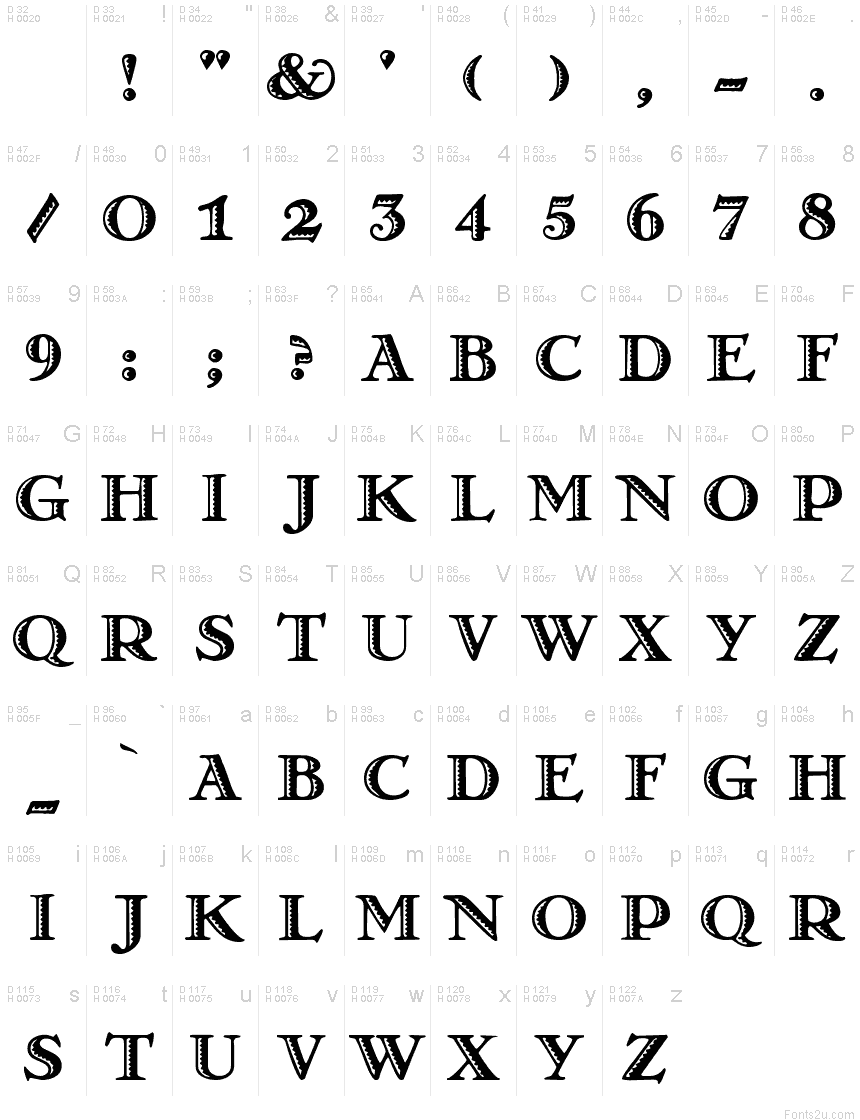
Matador font by Dixie's Delights is a free display font with a decorative, cut-paper edge and sharp wedge cuts running through the letterforms. The capitals feel sturdy and old-style, with wide serifs, pointed joins, and a rhythmic notch pattern that gives the set a carved, poster-like character.
Matador is a free font that works well for western event posters, tavern signs, rodeo flyers, vintage branding, and headline treatments that need a strong decorative accent. Its distinctive cuts and classic proportions also suit invitations, logo marks, packaging, and short display text where the lettering itself carries the design.